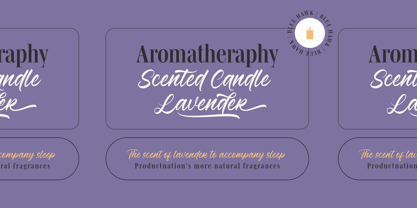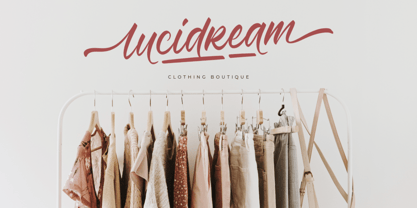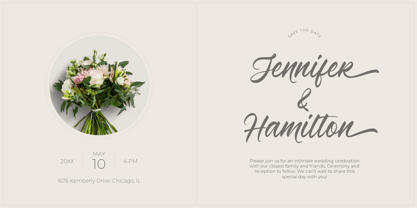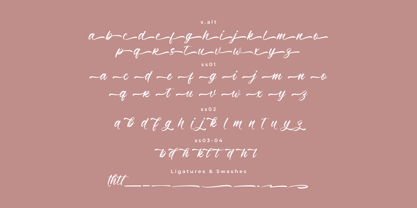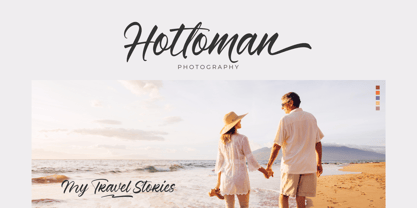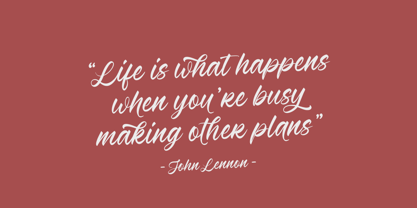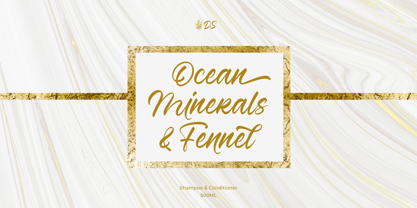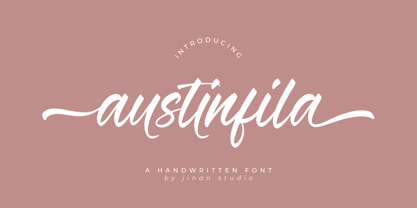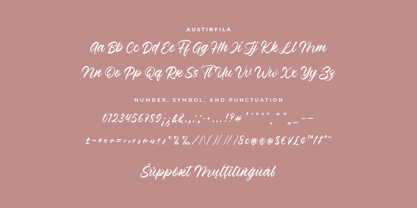
Austinfila
by Jinan Studio
The Austinfila Font Family was designed by Andi Syahdang, Ainun Jinan and published by Jinan Studio. Austinfila contains 1 styles. More about this family
Enrich your projects with a personal flair—connect with Austinfila, a stunning handwritten typeface. Explore its exceptional fit into contexts like wedding invitations, brand identities and social media visuals. Austinfila's script's elegance flows effortlessly, infusing every design with a stylish sophistication and captivating charm. A paradigm of exquisite artistry, this font is a painter's dream, exuding tenderness in each stroke and highlighting the unique beauty of your creative endeavor. Crafted for brilliance, Austinfila awaits to be the secret ingredient in your next design masterpiece.
Features
• A set of uppercase and lowercase glyphs
• Number, symbol, and punctuation
• Multilingual Support
• Alternates, ligatures, and swashes